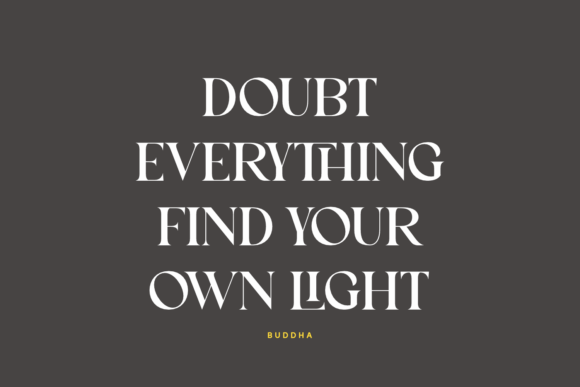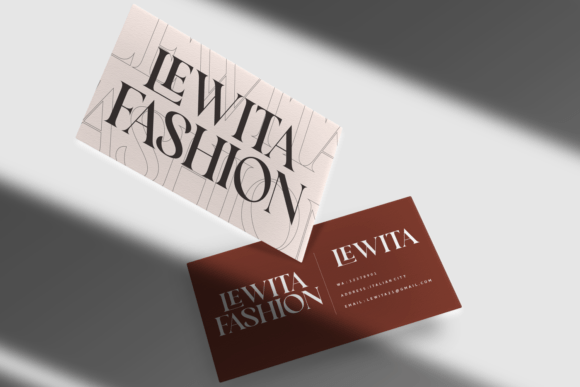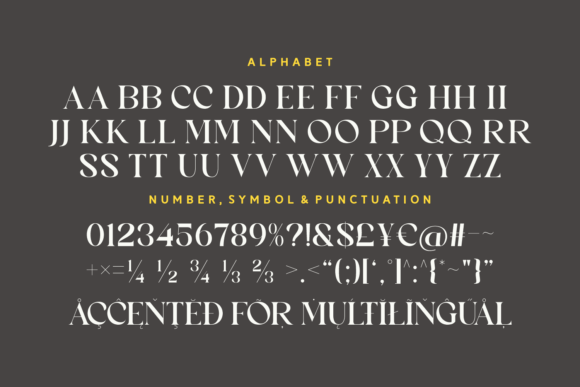
Introduction to Clotha Font
Clotha is a sleek and sophisticated modern serif font perfect for branding, high-end editorial design, minimalist logos, and chic promotional graphics.
Its high contrast strokes and geometric curves create a refined aesthetic, balancing strong visual impact with elegant subtlety Whether youโre working on fashion lookbooks, branding presentations, or beauty campaigns, Clotha delivers a premium experience with effortless grace.
Clotha Font offers exceptional quality and versatility, making it a valuable addition to your design toolkit. Whether you’re creating for personal projects or commercial use, Clotha Font delivers professional results.